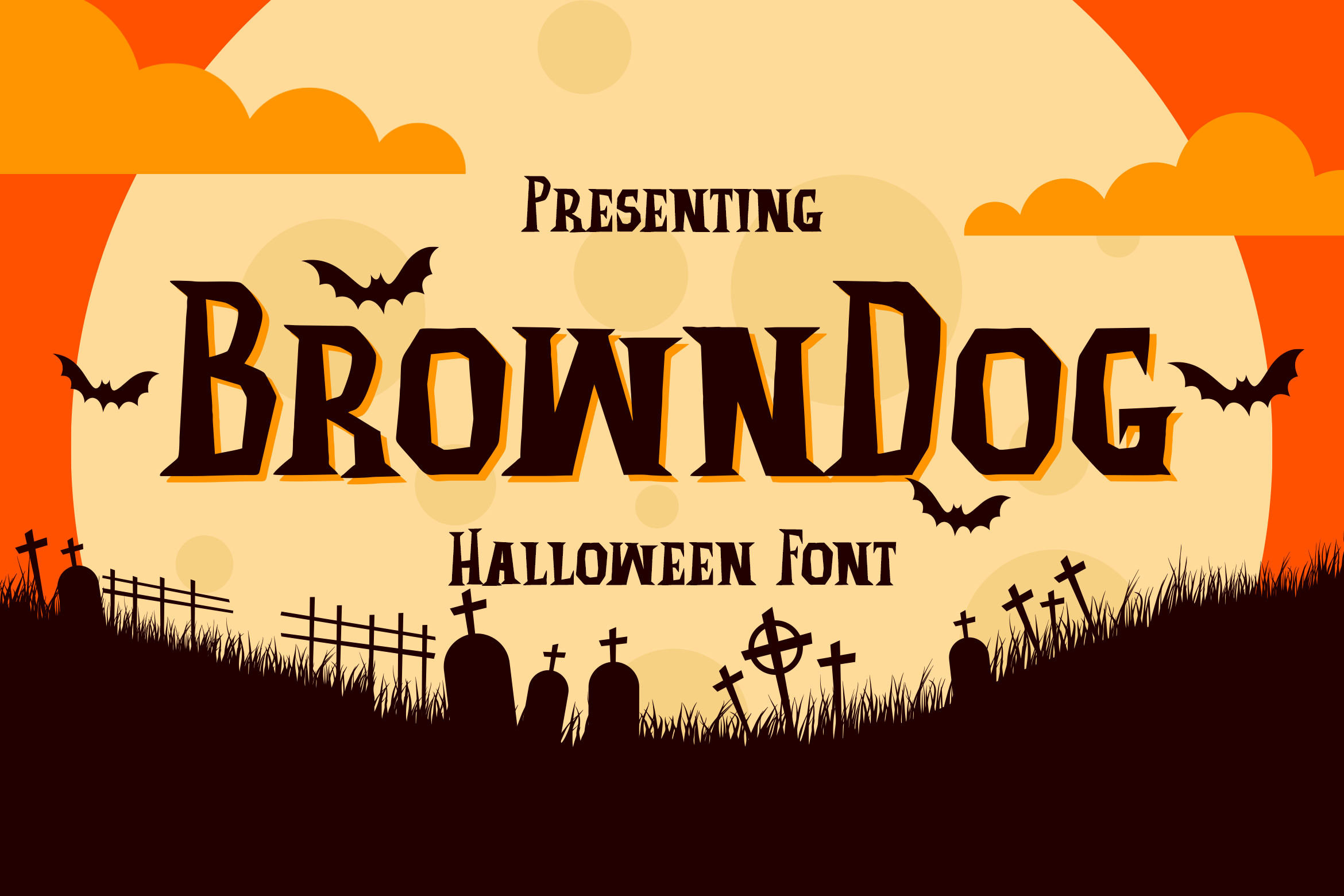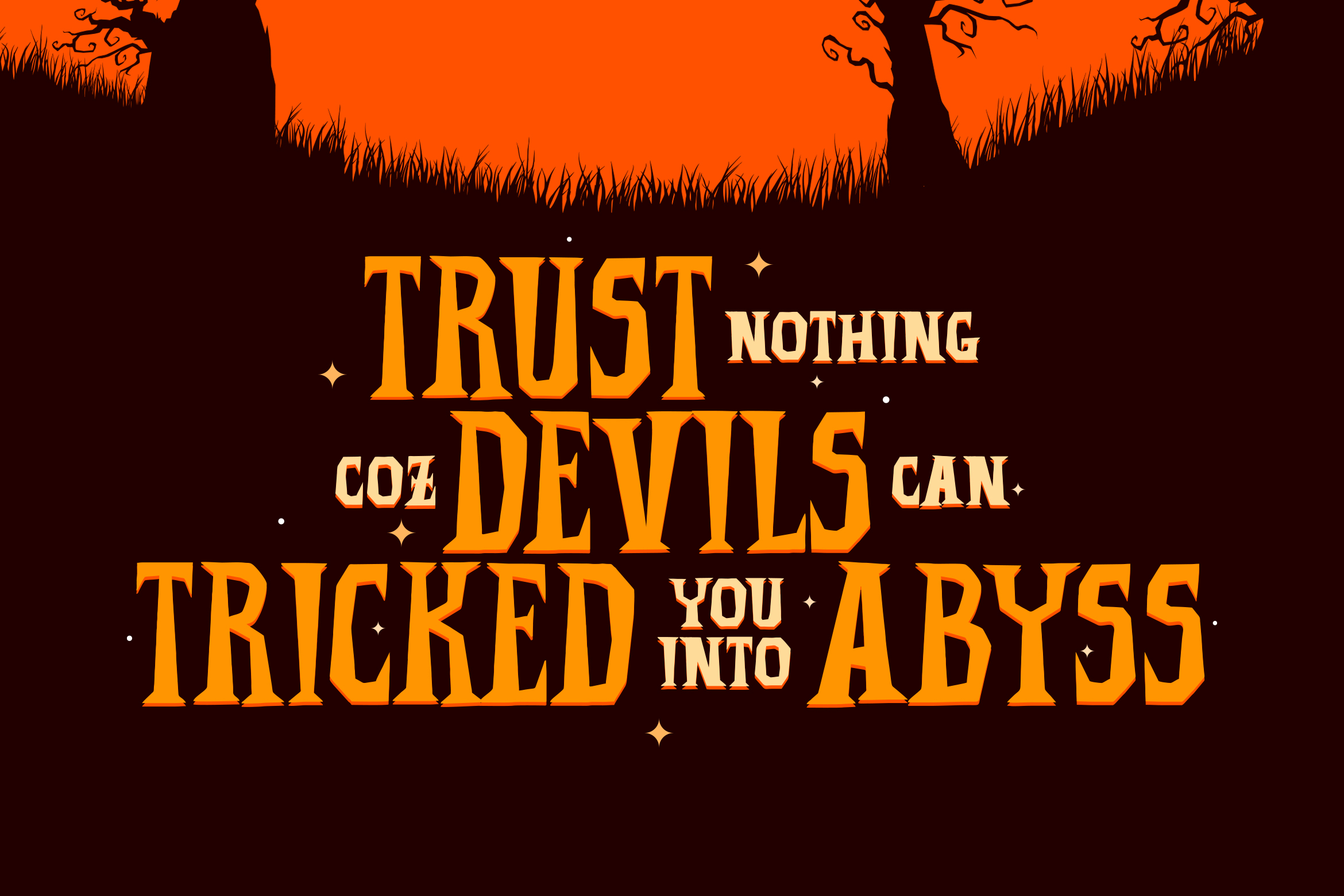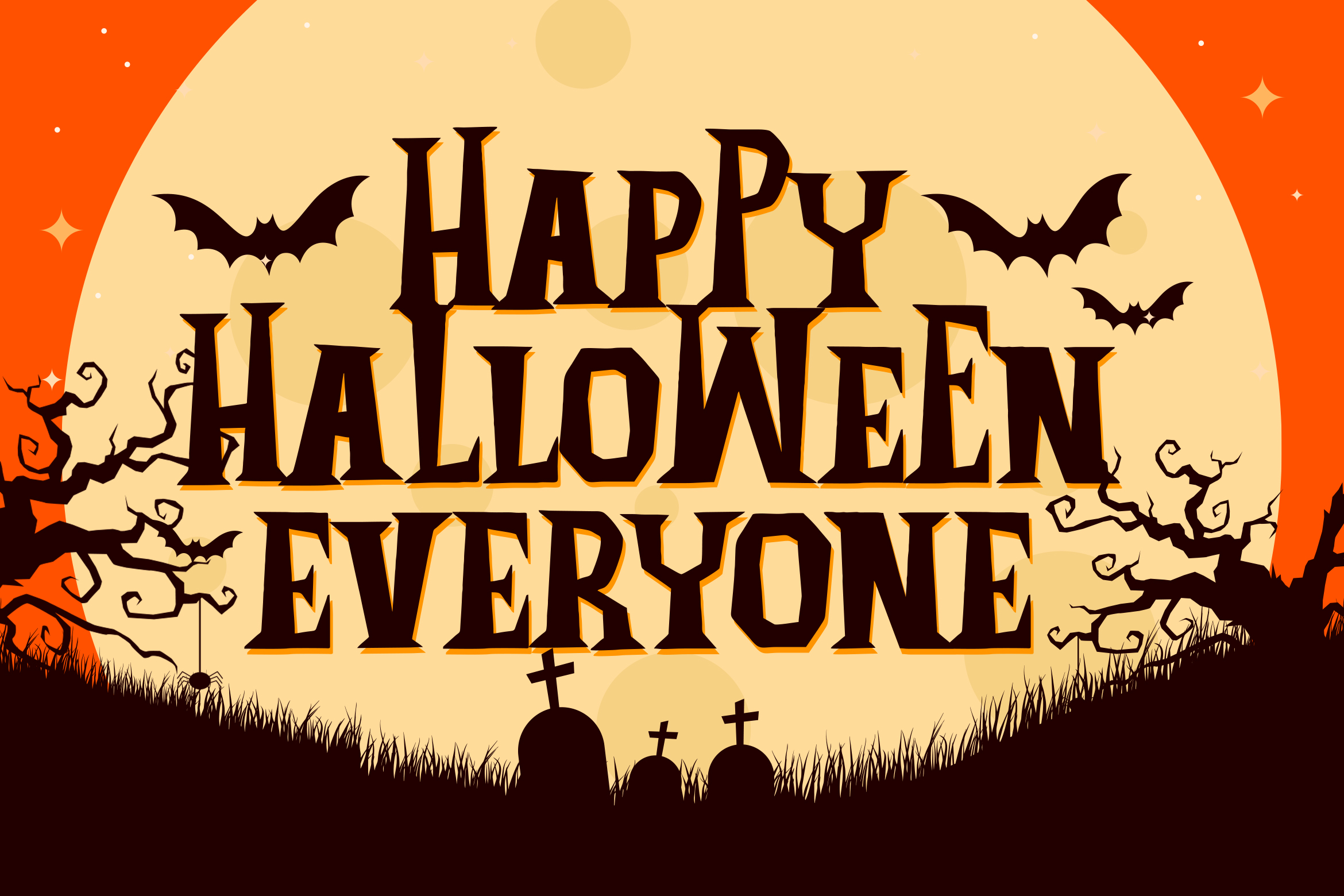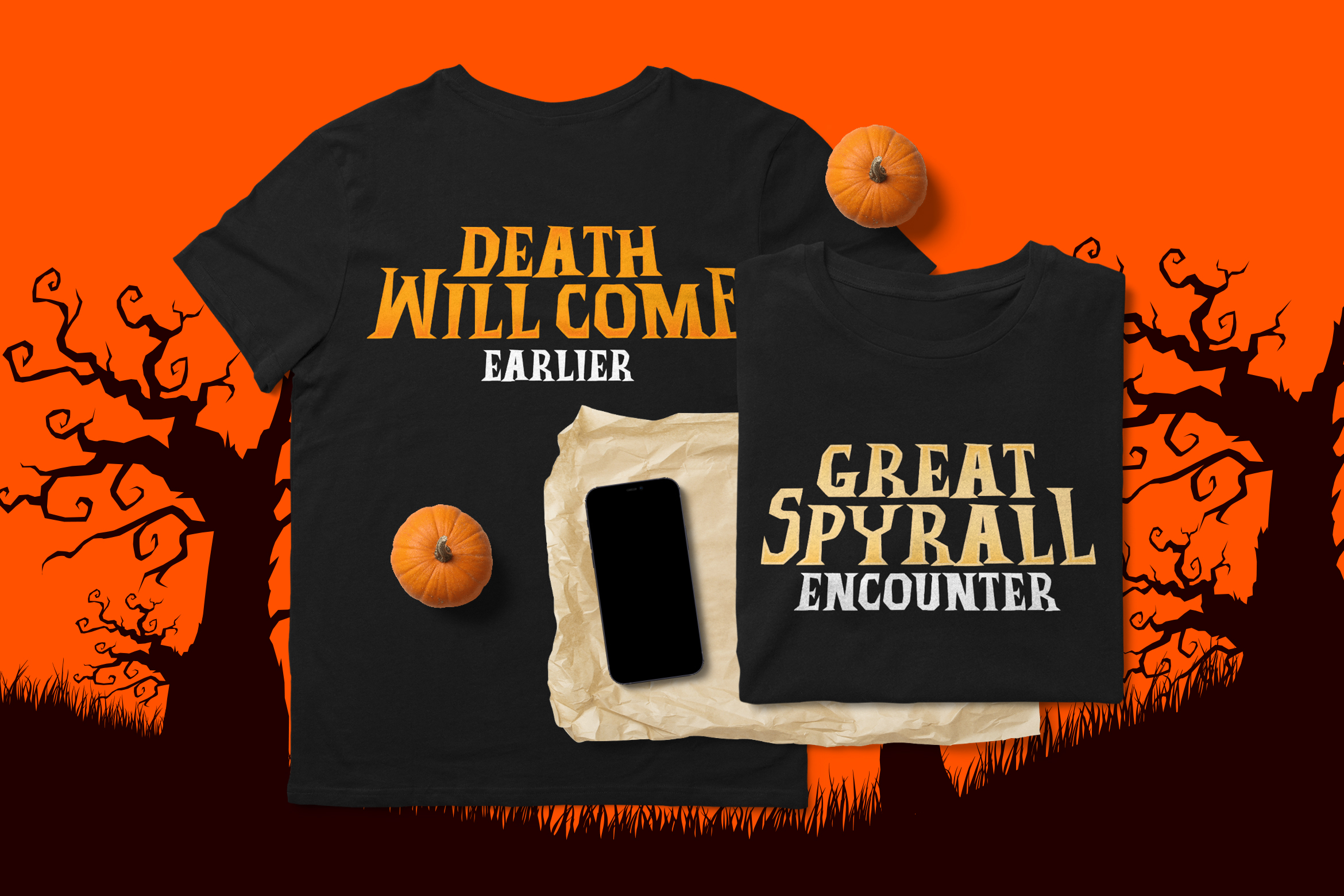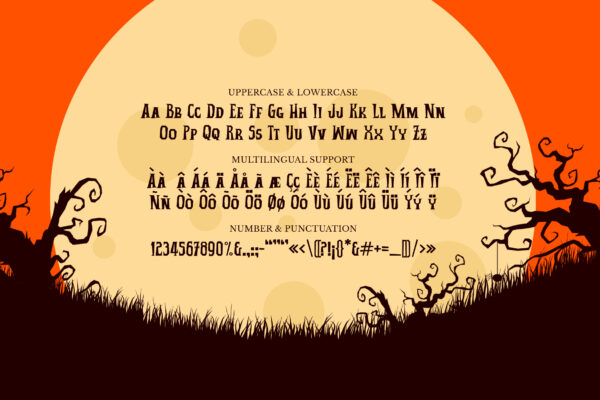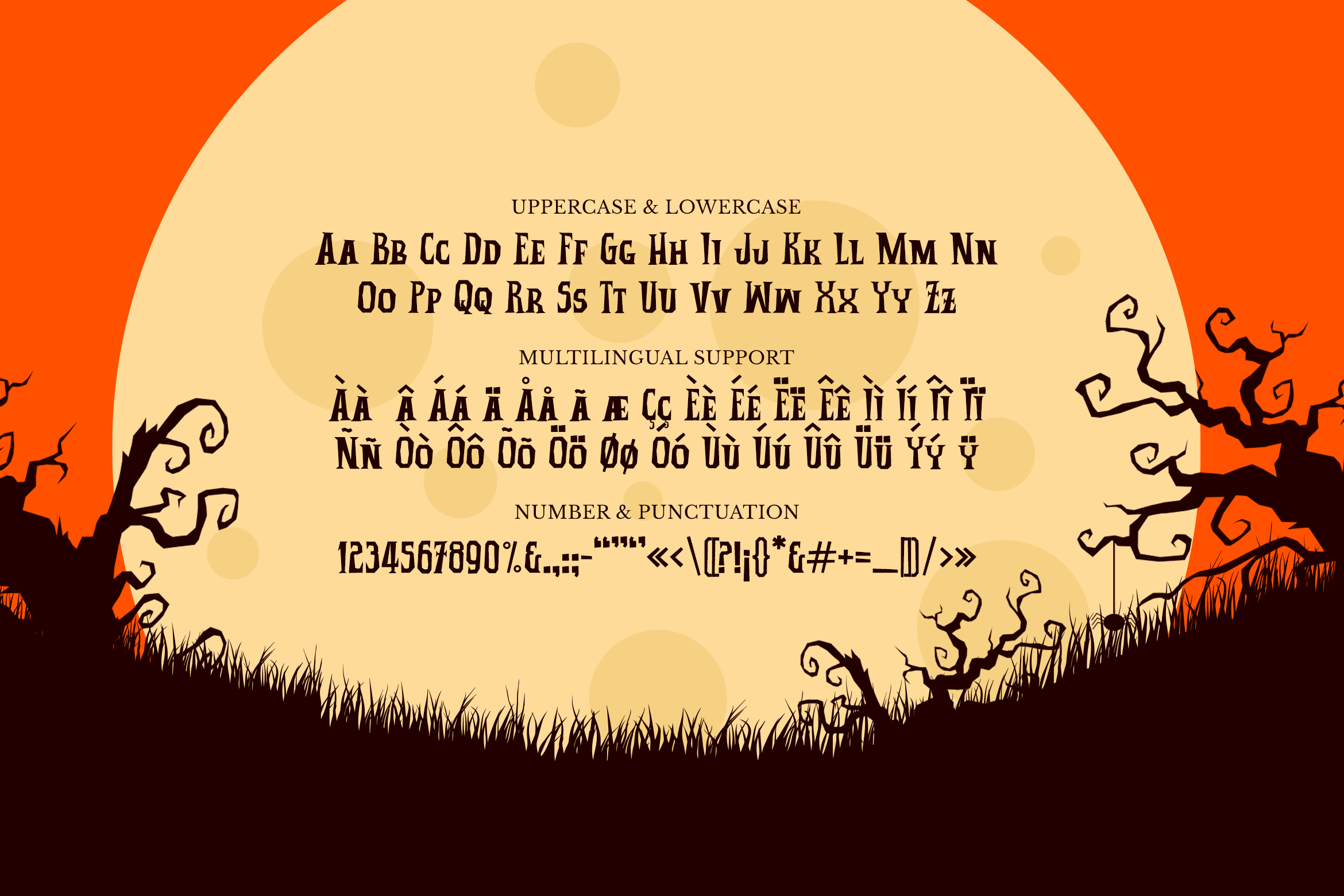
Brown Dog is a spooky and bold Halloween font designed to bring a chilling yet playful vibe to your seasonal projects. With sharp edges, uneven strokes, and a dramatic silhouette, it perfectly captures the eerie charm of haunted nights, graveyard tales, and all things creepy-cute. Whether you’re creating Halloween party invites, t-shirt designs, or horror-themed posters, Brown Dog adds the perfect touch of frightful flair.
This font includes uppercase and lowercase letters, multilingual support, punctuation, and numbers, making it versatile for both personal and commercial use. Its striking character shapes and layered shadow style ensure your message stands out in any haunted setting, from eerie merchandise to digital artwork.
Brown Dog